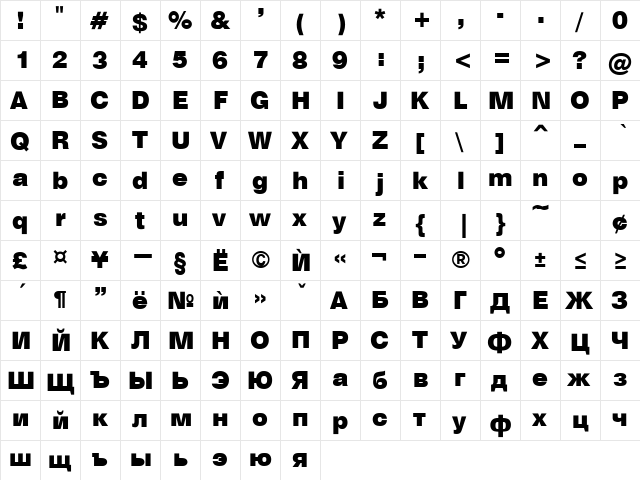
HebarBlack Normal
Design Context for HebarBlack Typeface
HebarBlack offers clean, dependable letterforms without strong stylistic allegiance, making it a practical choice for designers who need flexibility.